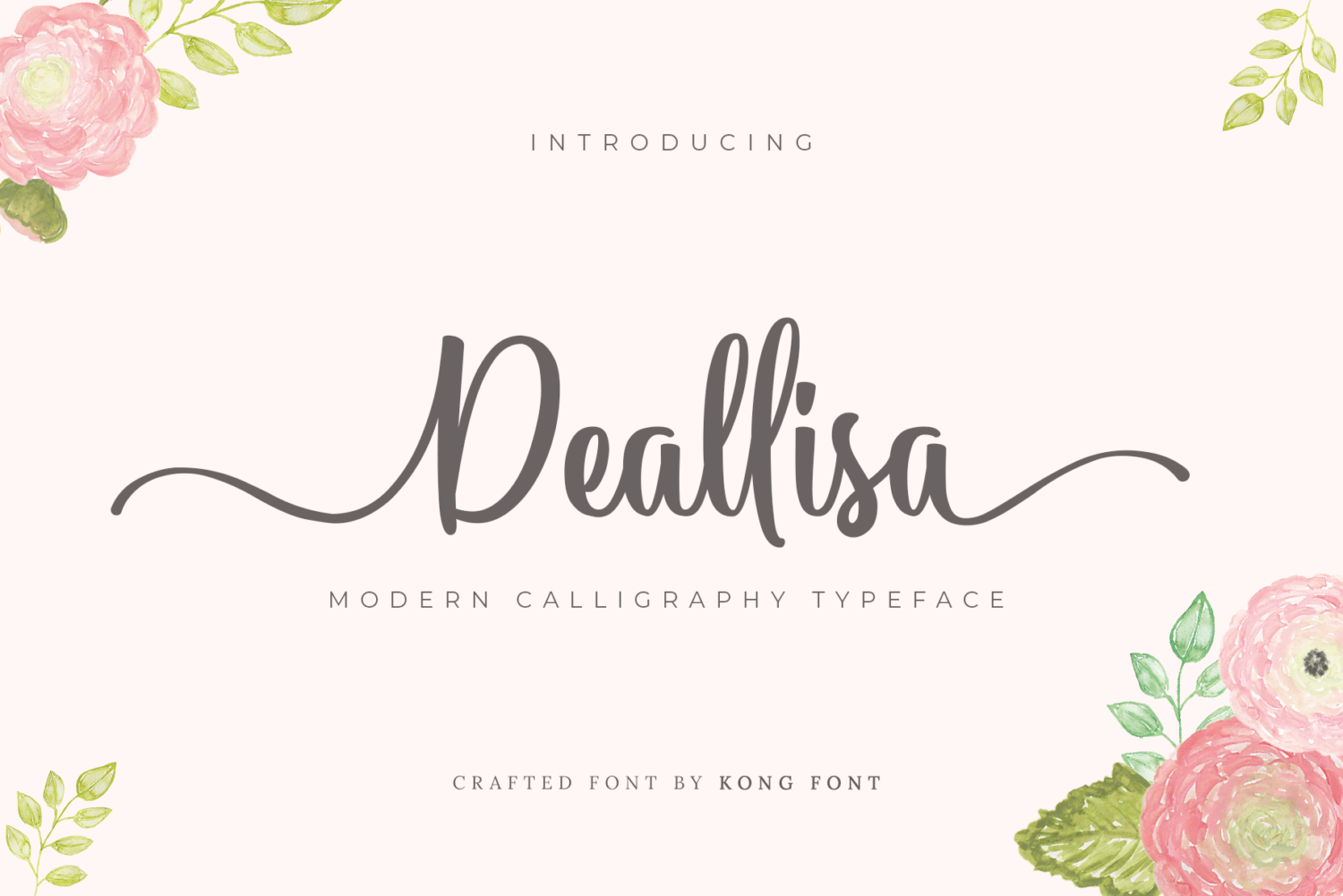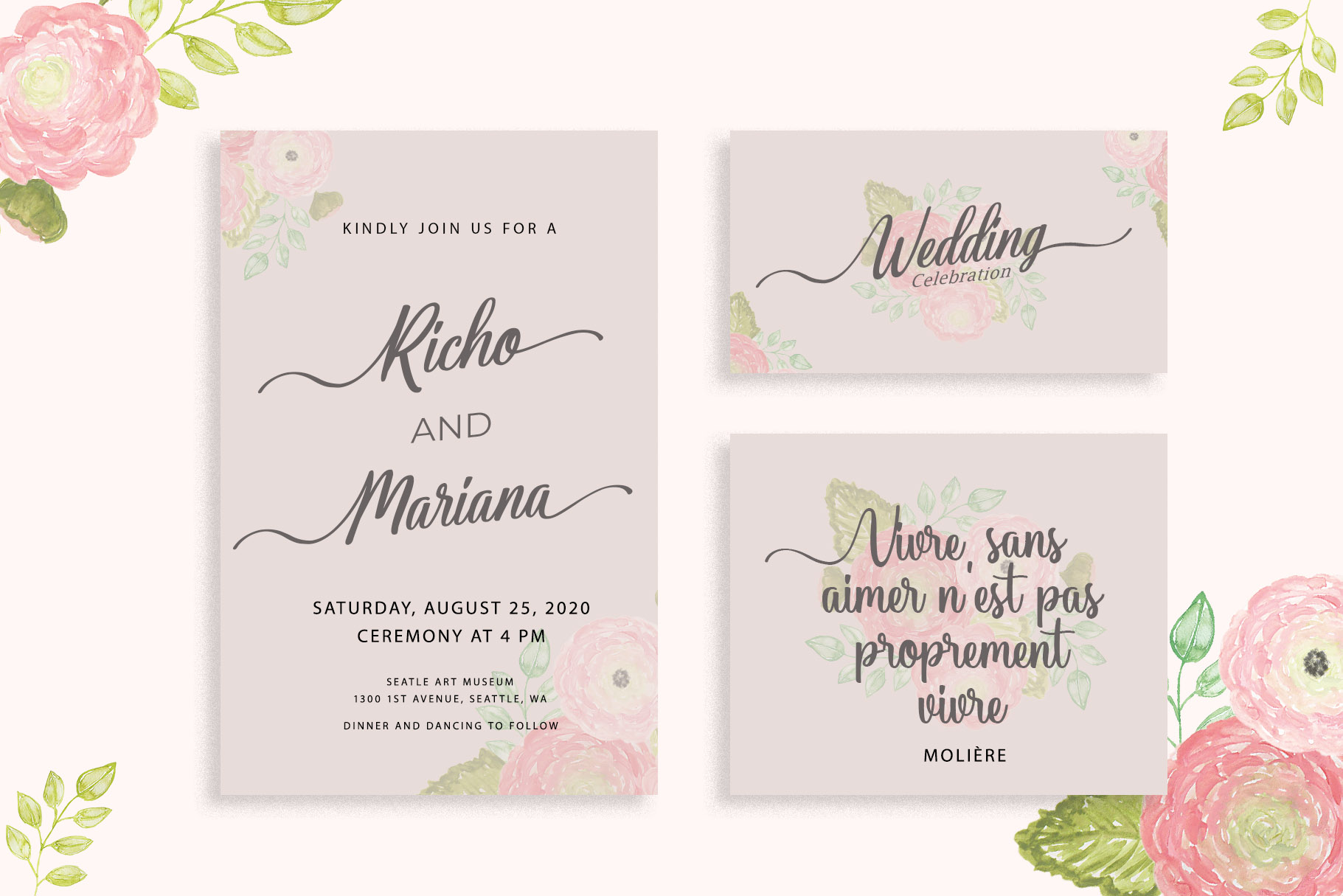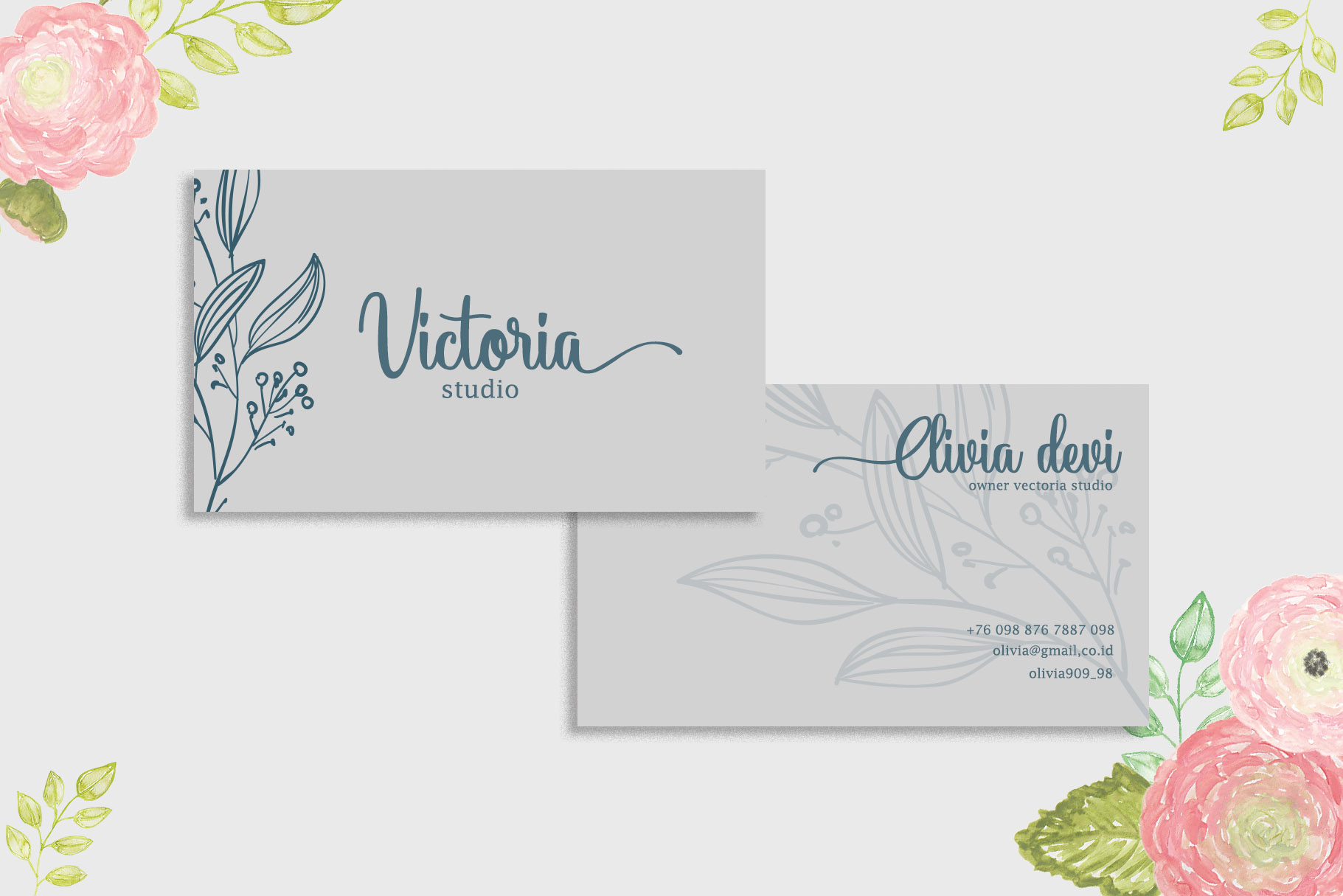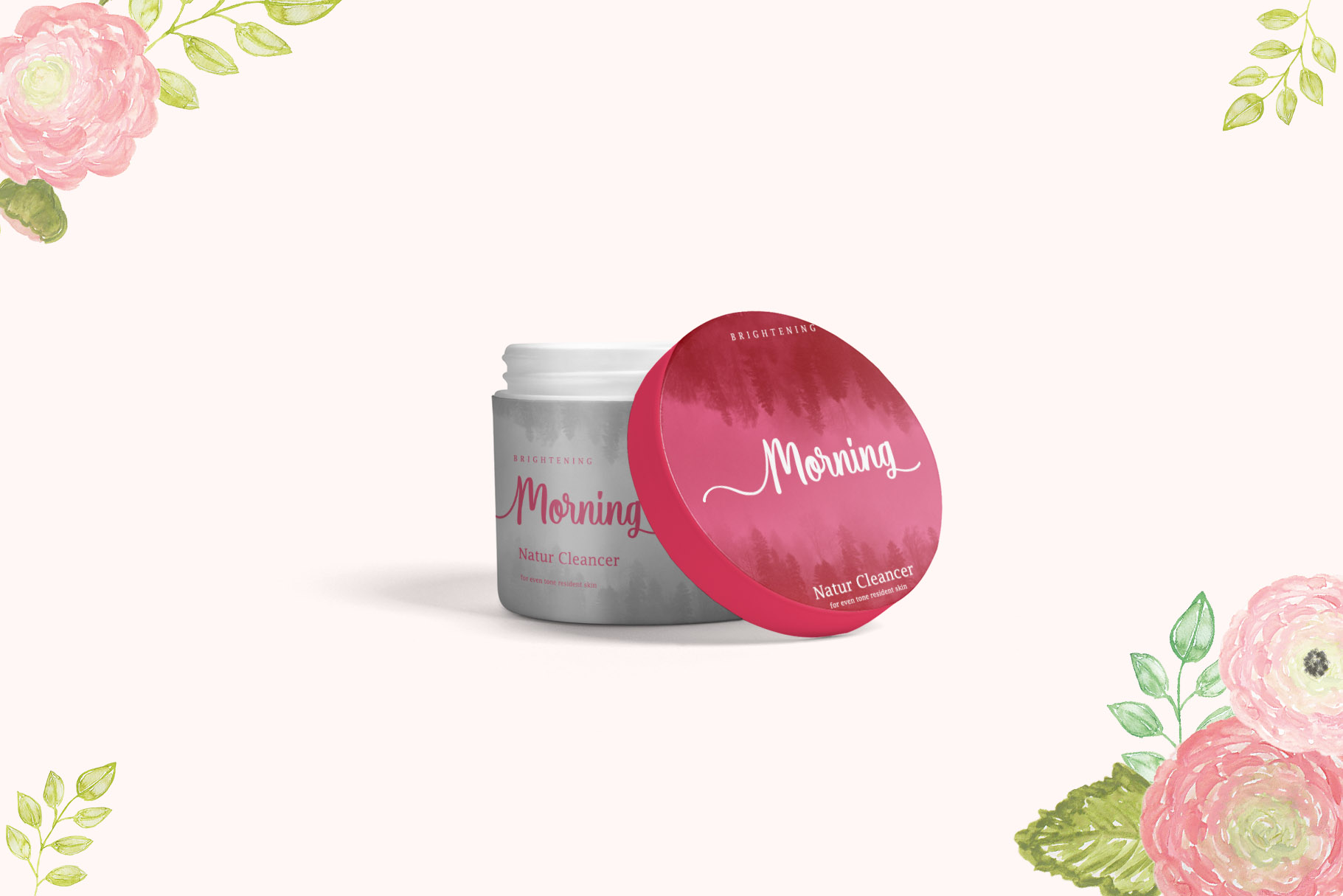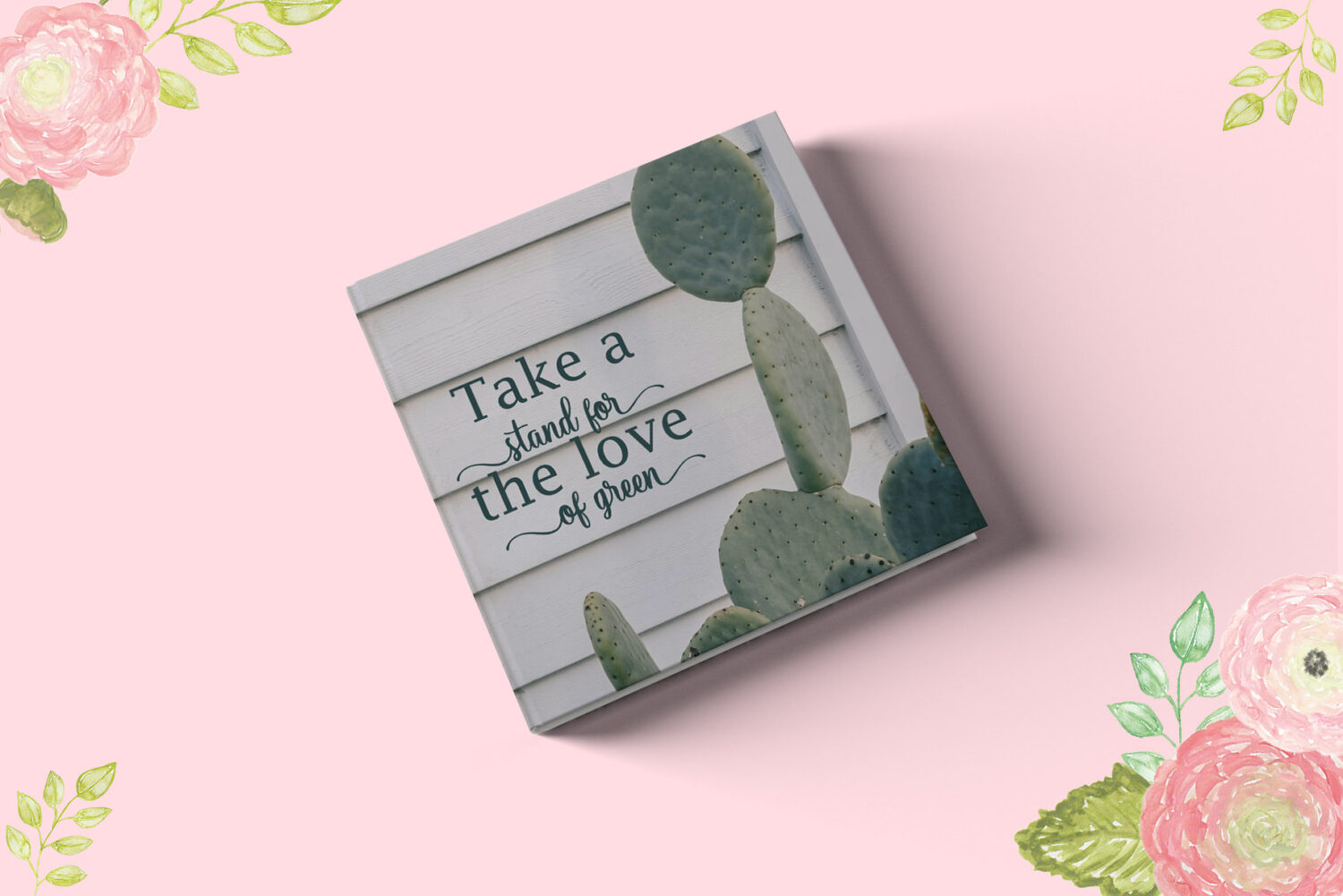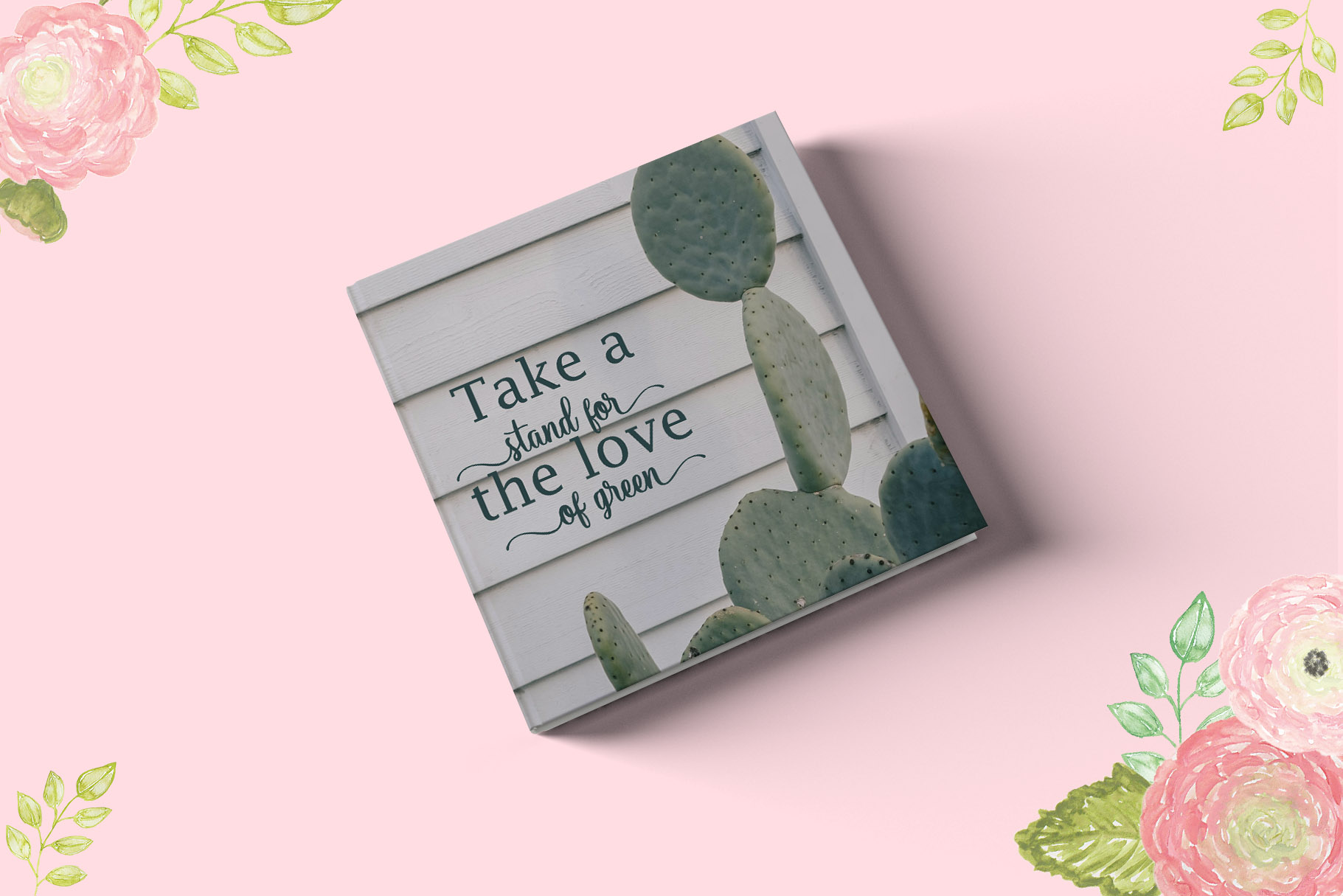
Deallisa Free Font
Deallisa Free Font is very suitable to make an adorable invitation for a wedding, birthday, special day. A collection of letters and numbers suitable for your projects also great for Logotype, Branding Design, Logo Design, Digital Lettering Arts, T-Shirt/Apparel, Poster, Magazine, Signs, Advertising Design, and also perfect for your other projects branding. This free typeface was designed by a talented Kong Font. If you like it don’t forget to check out the full version.